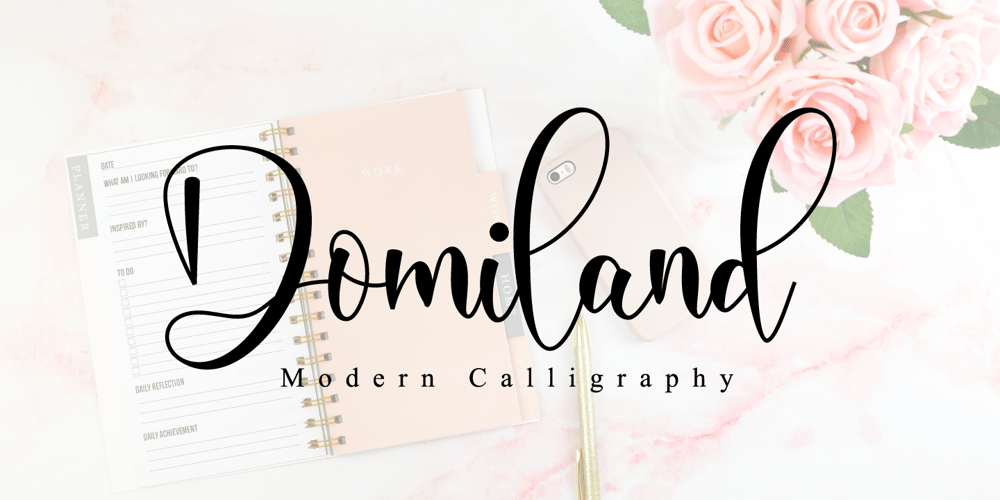
Domiland Font Family was designed by Novia Himatunnisa and published by Nissa Nana. Domiland contains 1 styles and family package options. Domiland is a beautiful script font that has a classy, elegant, and modern look. Fall in love with its flowing curves!